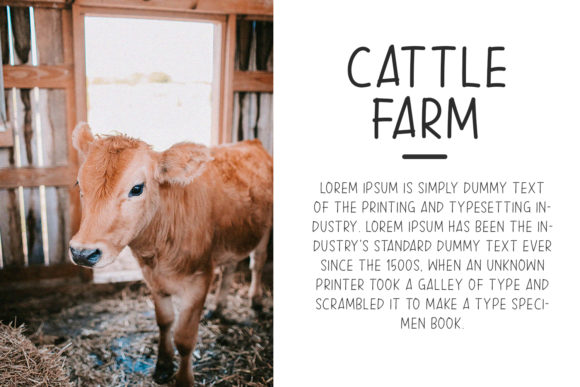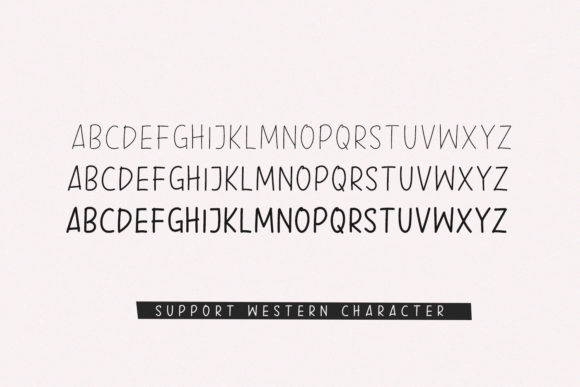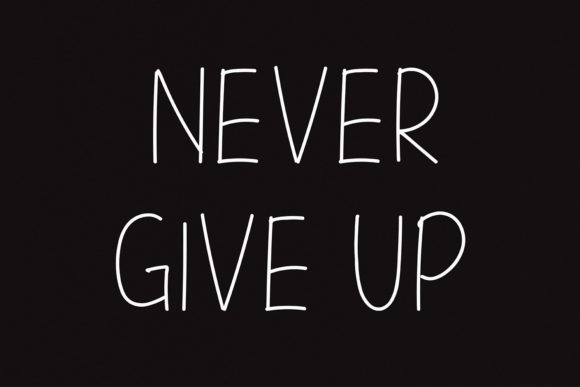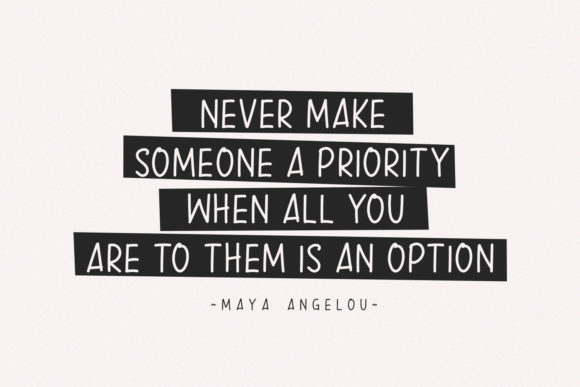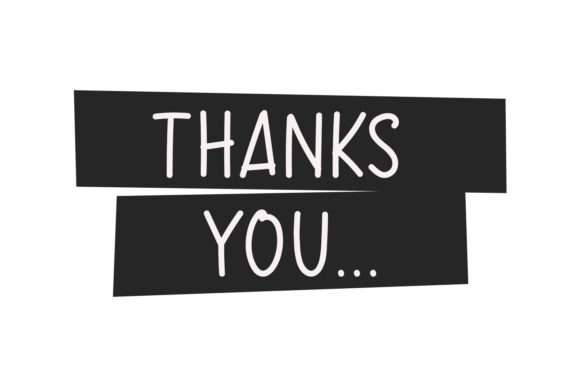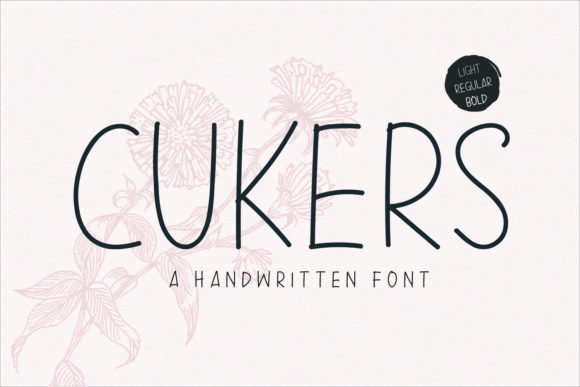
Introduction to Cukers Font
The Cukers is a handwritten sans serif font.
| 👤 Author | Graphicfresh |
Every single letter has been carefully created to make your text look beautiful It comes in a regular, bold, and italic style and is perfect for a variety of designs.
Key Features of Cukers Font
Why Choose Cukers Font?
Cukers Font offers exceptional quality and versatility, making it a valuable addition to your design toolkit. Whether you’re creating for personal projects or commercial use, Cukers Font delivers professional results.